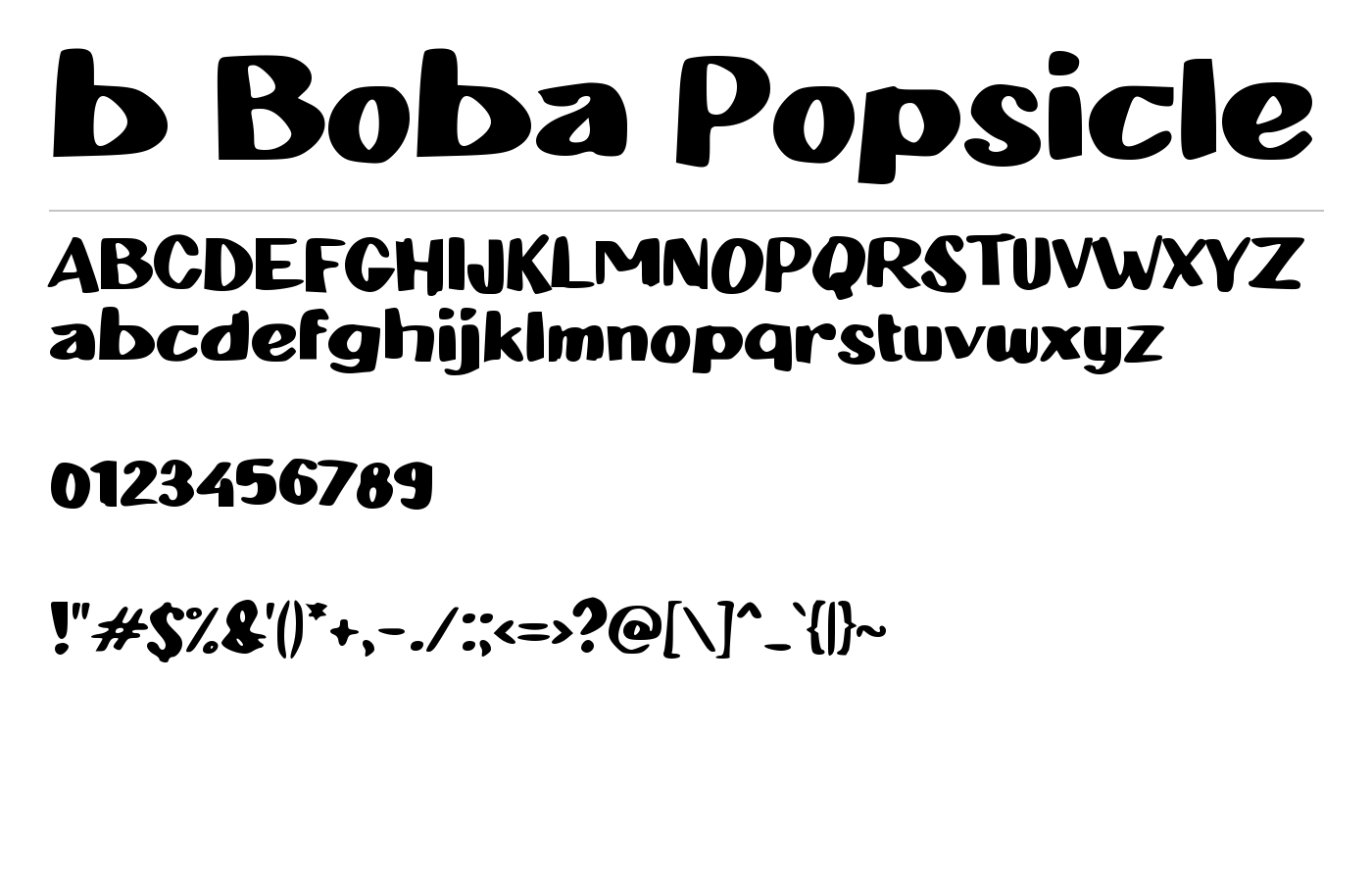
Boba Popsicle is a bold, playful sans serif font with a friendly and slightly quirky personality. Its chunky letterforms, irregular shapes, and moderate x-height give it a casual, hand-drawn feel that works well for fun, informal designs like children’s books, party invitations, and creative branding. This font shines in headlines and logos where a lively, approachable vibe is desired.
b Boba Popsicle Font